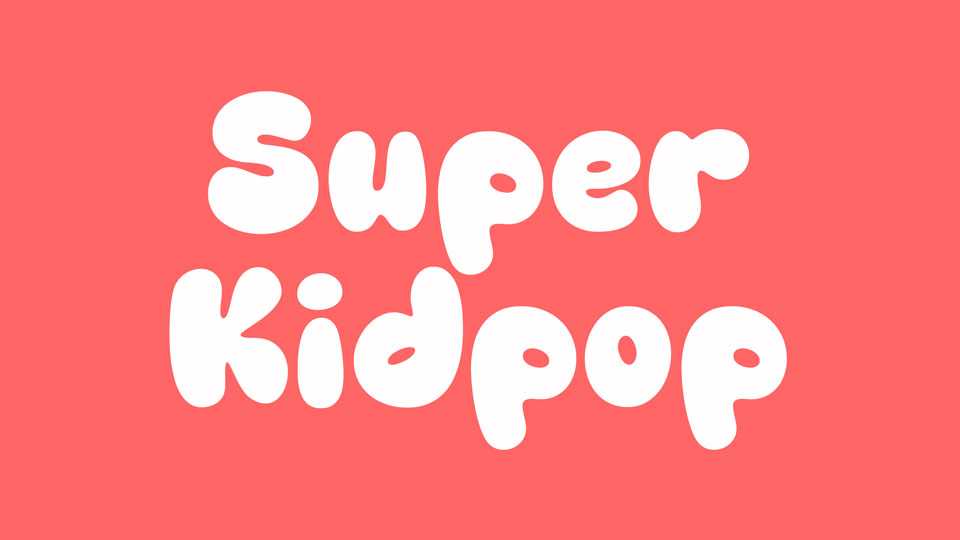
Download Super Kidpop font, a soft, rounded display typeface with a playful and friendly character. Its bubbly letterforms and smooth curves create a cheerful and approachable look